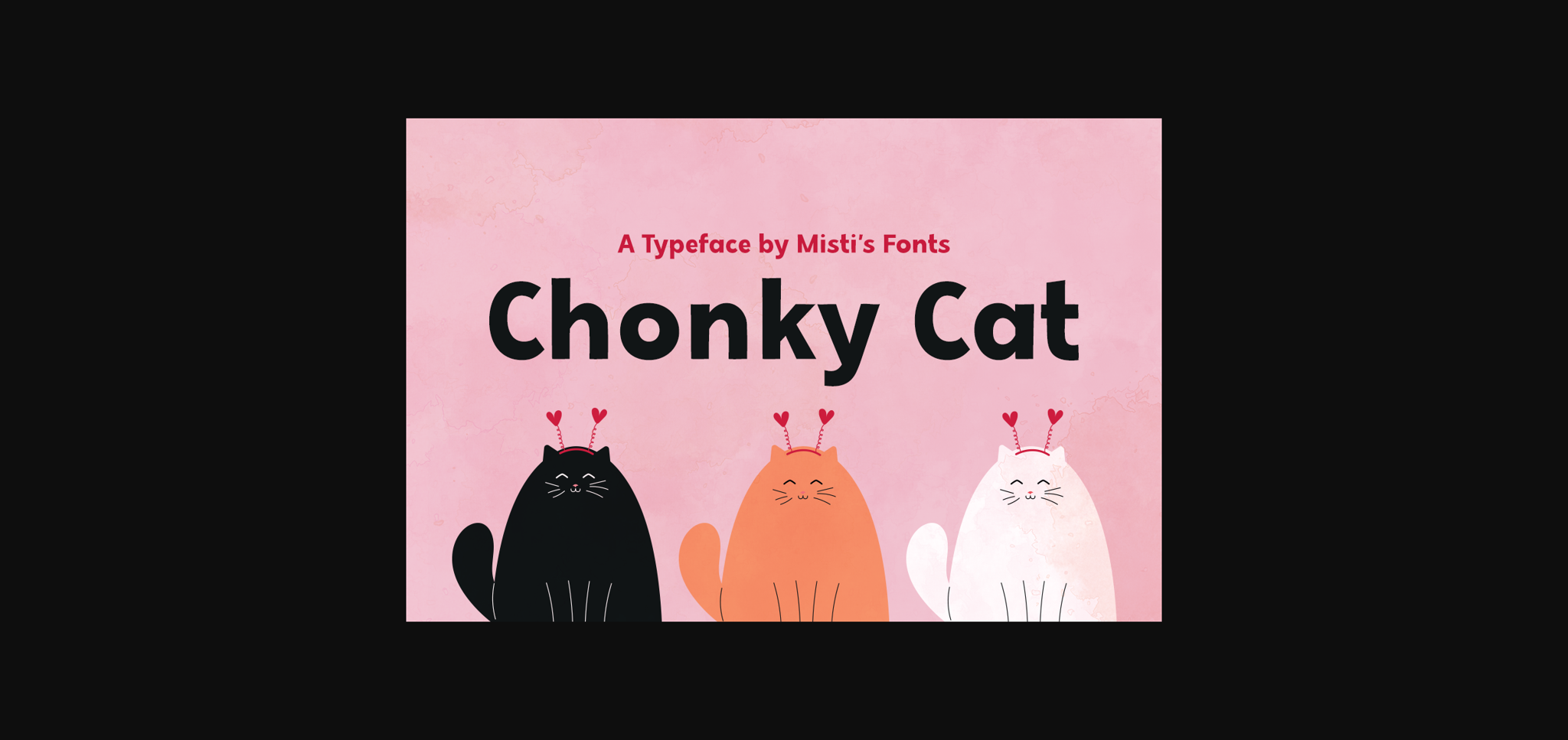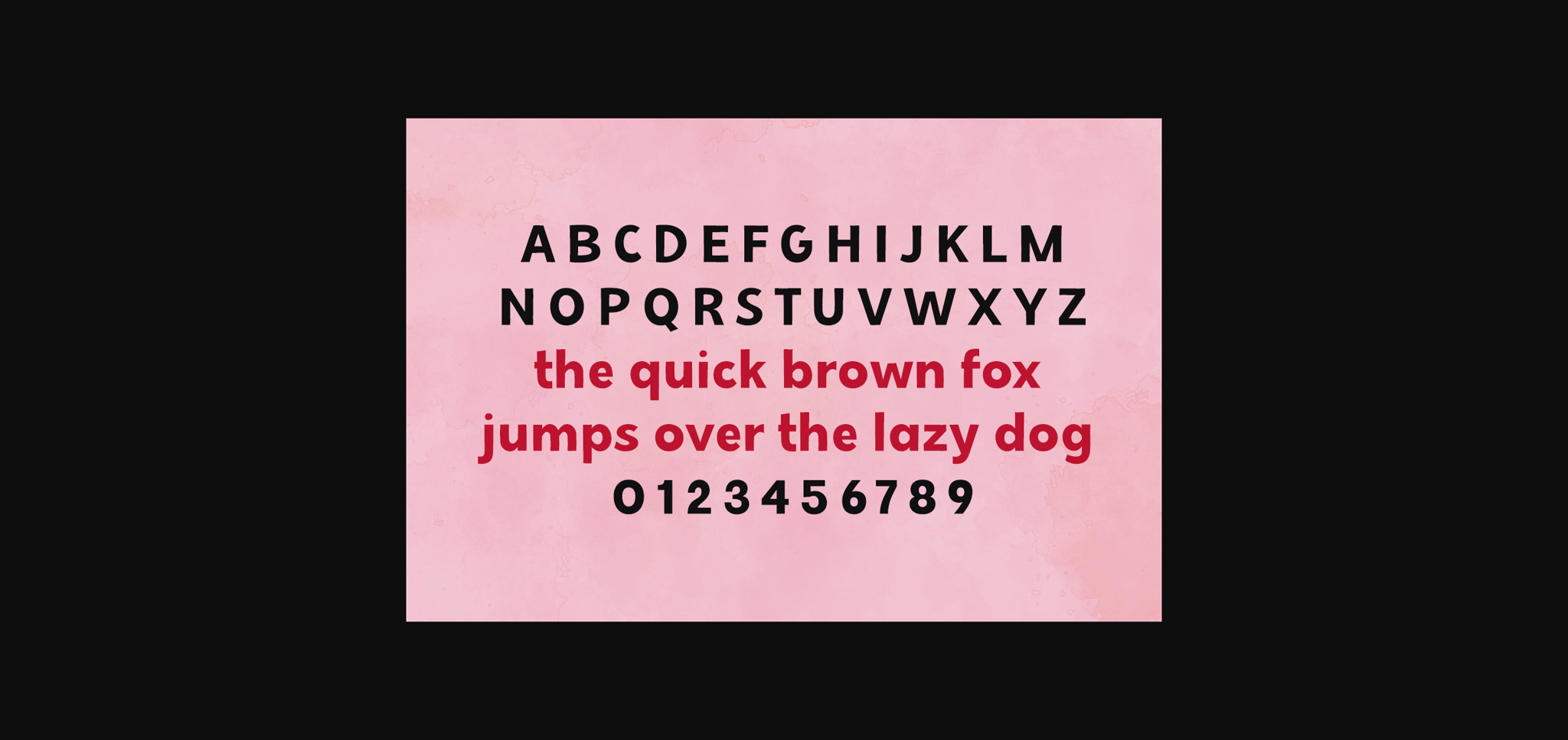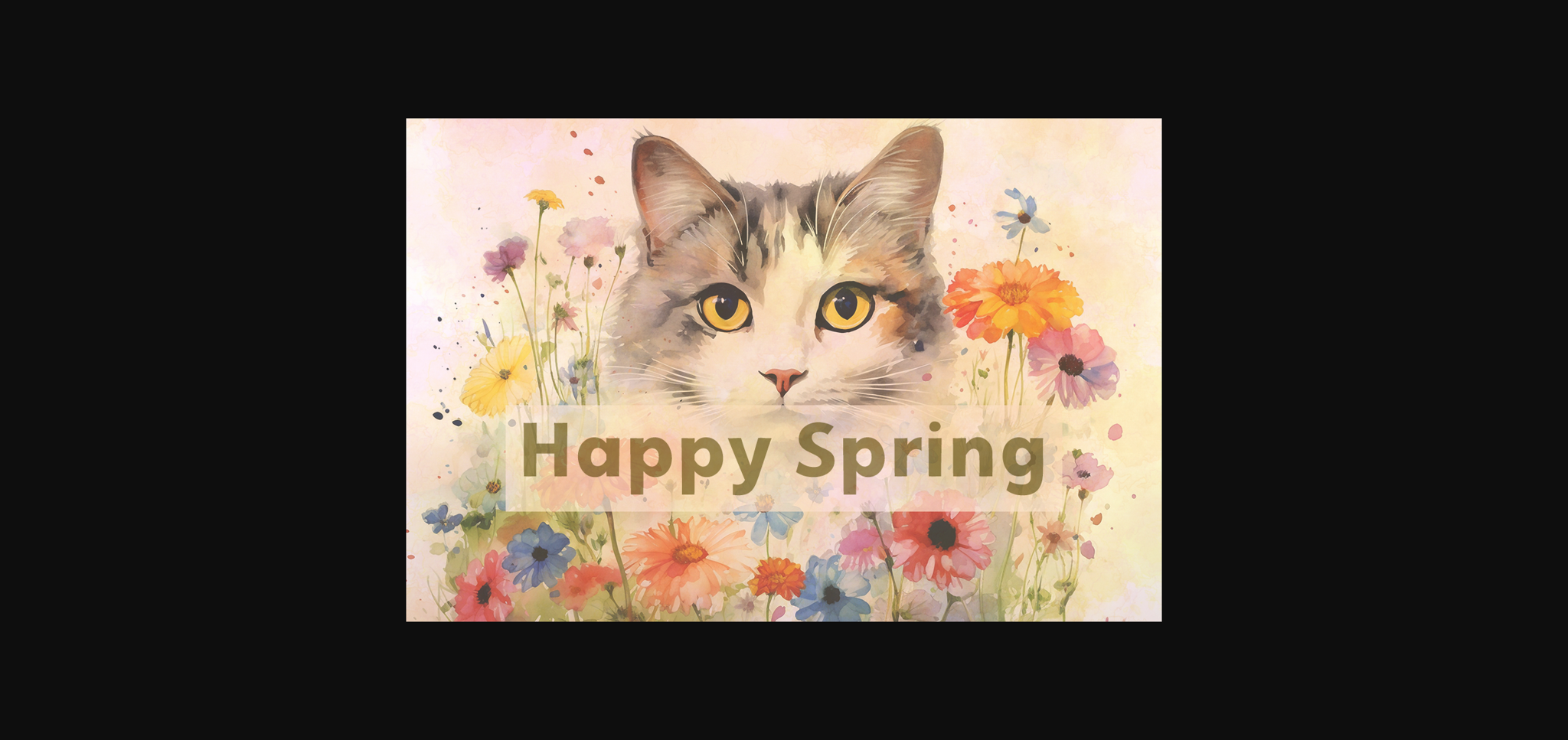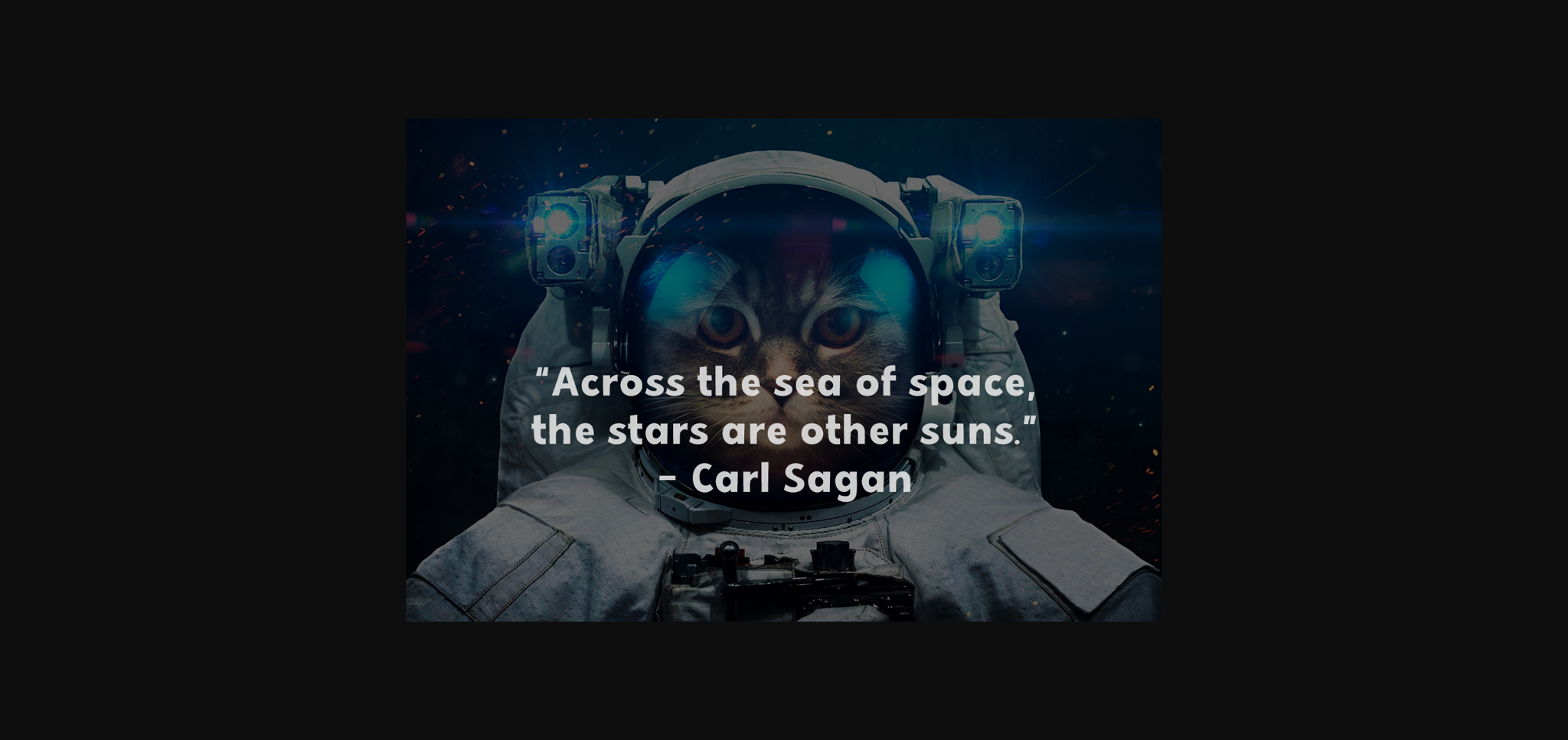
About Chonky Cat Font
Introducing Chonky Cat – a playful and charismatic bold sans serif typeface that is sure to make a statement in any design. This font exudes a sense of confidence and charm, with its thick and rounded letterforms giving it a friendly and approachable appearance.
Perfect for headlines, logos, posters, and any design where you want to stand out and make an impact, Chonky Cat will bring a touch of whimsy to your creations.
Whether you’re designing for a fun-loving audience or simply want to add a touch of personality to your project, this font is the purrfect choice.
Perfect for headlines, logos, posters, and any design where you want to stand out and make an impact, Chonky Cat will bring a touch of whimsy to your creations.
Whether you’re designing for a fun-loving audience or simply want to add a touch of personality to your project, this font is the purrfect choice.